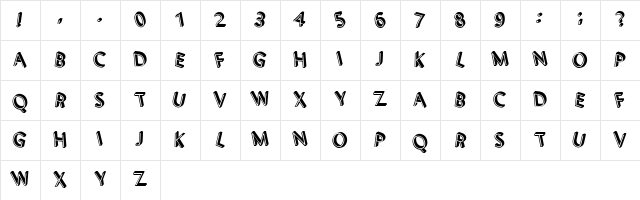
3D Letters Shadow Regular
Design Context for 3D Letters Shadow Typeface
3D Letters Shadow is built around its visual character rather than neutral utility — its distinctive forms are designed to make an impression at display sizes.
Font Pairing: Pair with a clean neutral sans-serif for body copy to let 3D Letters Shadow's character lead without overwhelming the composition.
Pro Tip: Use 3D Letters Shadow exclusively at display sizes — it was designed to be seen, not read at length. Let a neutral companion handle body copy.